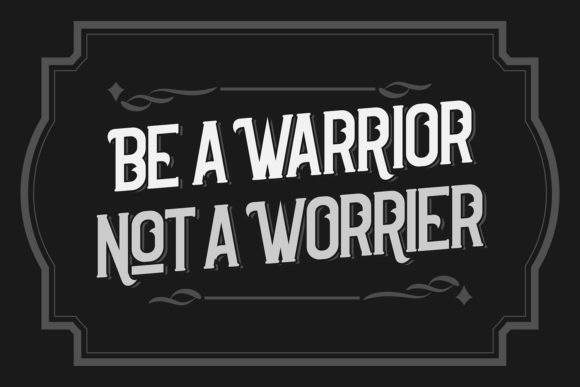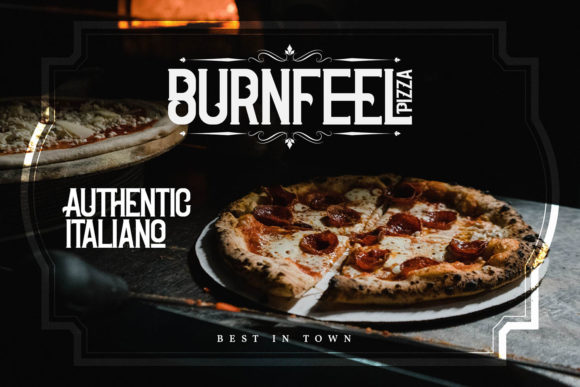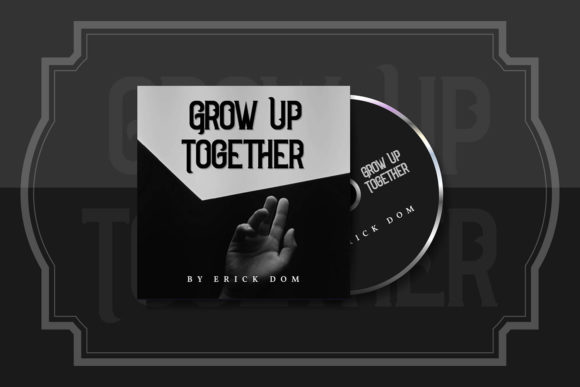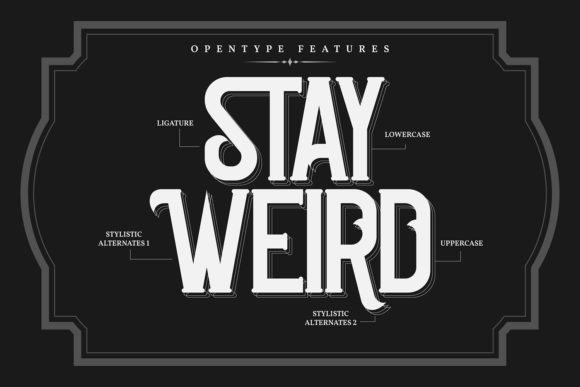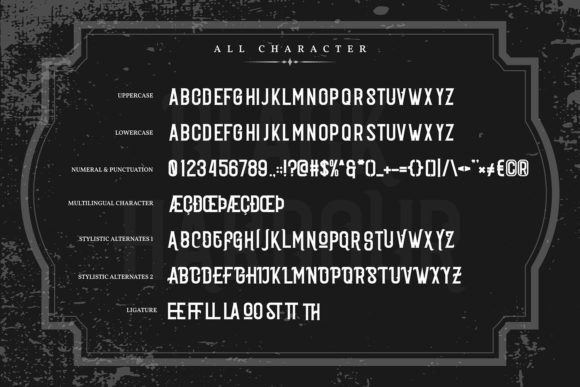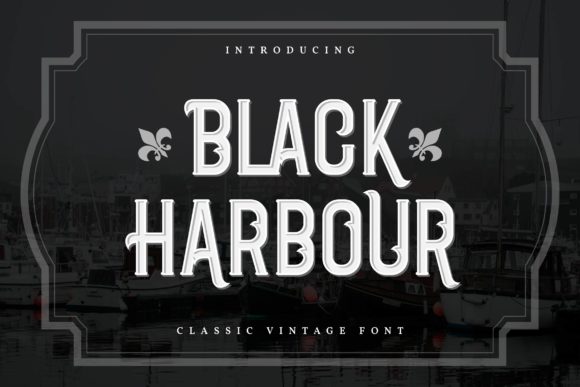
Introducing Black Harbour Font: Elevate Your Designs with Modern Elegance
In the world of typography, a font can make or break a design. For designers and crafters seeking a modern and clean display font, Black Harbour Font is an excellent choice. Its versatility and neat vibe are sure to brighten up each of your designs, offering endless possibilities for creative expression.
What is Black Harbour Font?
Black Harbour Font is a contemporary display font designed to make a statement. Its sleek lines, balanced proportions, and clean aesthetic make it perfect for a wide range of design applications. Whether you’re working on a logo, branding materials, posters, or digital content, Black Harbour Font is sure to impress.
Key Features of Black Harbour Font
- Modern and Clean Design: Black Harbour Font boasts a modern and clean design, making it ideal for designs that require a fresh and contemporary look.
- Versatility: This font is incredibly versatile, suitable for various design projects, from elegant logos to eye-catching posters and social media graphics.
- Neat Vibe: The font’s neat and organized aesthetic ensures that your designs look professional and polished.
- Endless Variations: With Black Harbour Font, you can experiment with numerous variations, ensuring your designs always stand out.
Uses of Black Harbour Font
The versatility of Black Harbour Font makes it suitable for a variety of design projects, including:
- Logo Design: Create memorable and impactful logos that make your brand stand out.
- Branding Materials: Develop a consistent brand image with business cards, brochures, and letterheads that showcase your professionalism.
- Posters and Flyers: Design eye-catching posters and flyers that grab attention and convey your message effectively.
- Digital Content: Enhance your website, social media posts, and digital advertisements with a modern and clean typography.
Why Choose Black Harbour Font?
In a sea of fonts, Black Harbour Font stands out for several reasons:
- Unique Aesthetic: Its modern and clean design offers a fresh alternative to traditional fonts.
- Ease of Use: Black Harbour Font is easy to read and works well in both digital and print formats.
- Customization: The font’s flexibility allows for endless customization options, ensuring your designs are always unique.
Tips for Using Black Harbour Font
To get the most out of Black Harbour Font, consider the following tips:
- Experiment with Sizes: Play with different font sizes to create visual hierarchy and emphasis in your designs.
- Combine with Other Fonts: Pair Black Harbour Font with complementary fonts to add depth and interest to your designs.
- Adjust Line Spacing: Optimize line spacing to improve readability and ensure your text flows smoothly.
Black Harbour Font is a powerful tool for designers and crafters looking to elevate their designs with a modern and clean display font. Its versatility, neat vibe, and endless variations make it an excellent choice for a wide range of projects. By incorporating Black Harbour Font into your design arsenal, you’ll be able to create stunning and effective designs that capture attention and leave a lasting impression.